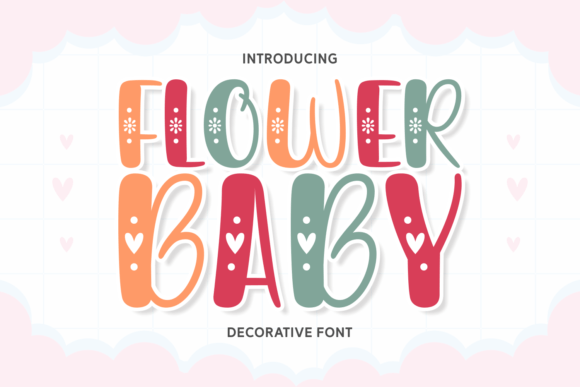
Flower Baby Font
Flower Baby is a playful and whimsical decorative font that captures the essence of joy and innocence with its charming design. Each letter is adorned with delicate flowers and hearts, adding a touch of sweetness and whimsy to the font’s overall appearance. The playful details evoke images of a sunny garden blooming with love and happiness, making “Flower Baby” perfect for projects that aim to convey a sense of childlike wonder and delight.
With its playful and decorative style, “Flower Baby” is well-suited for a variety of design applications, including greeting cards, invitations, posters, and children’s books. Whether used for headlines, titles, or decorative elements, this font adds a delightful touch of personality and charm to any project, infusing it with a sense of warmth and cheerfulness.